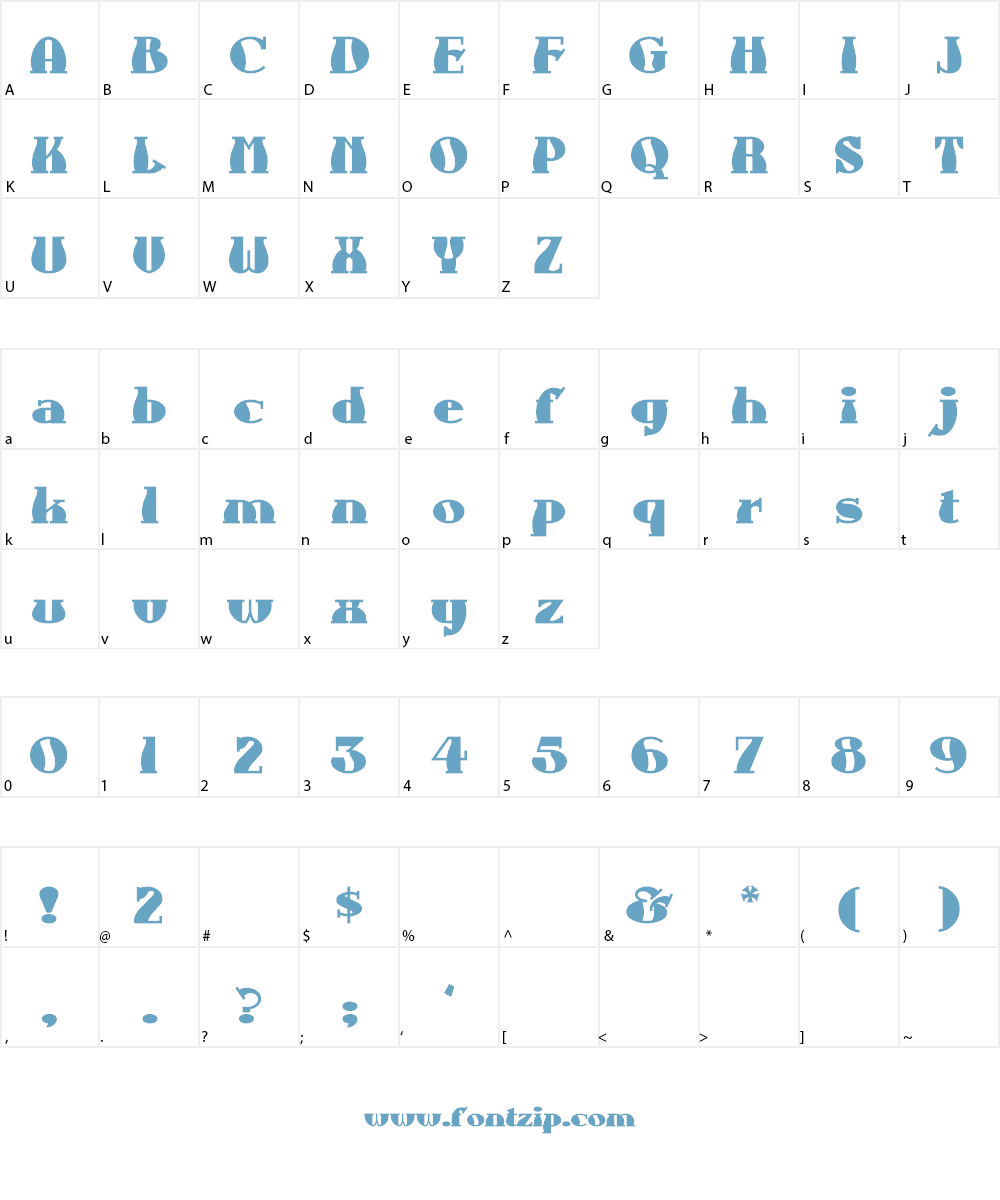
Here’s a really fun font, patterned after Odeon by David Nalle. The original was very quirky, and rather roughly drawn. I cleaned up and “regimented” the characters, to give the typeface a consistent “fat ankle” look (hence the name). Otto Heim would be proud!